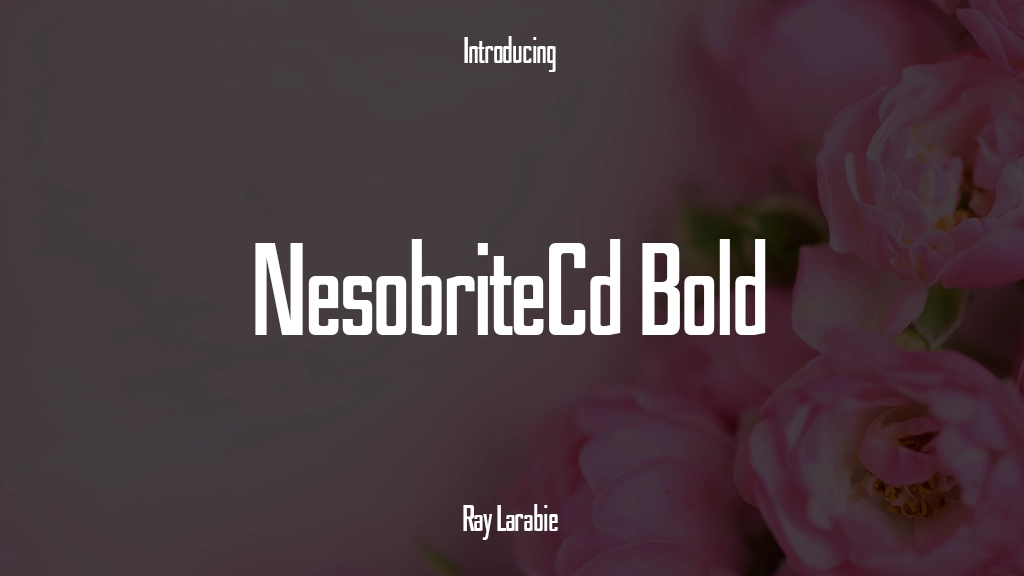
NesobriteCd Bold is a condensed bold font that is free for personal use.The font subfamily is Condensed Bold. It was designed by Ray Larabie and is perfect for all your fun designs.